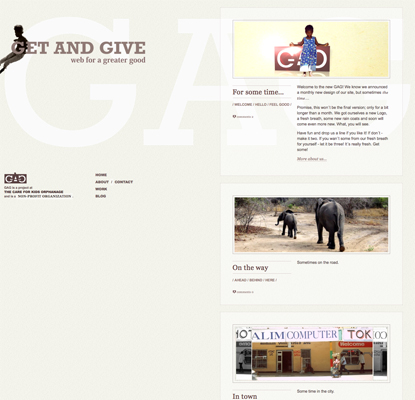
get and give
When I first came across GAG: Get and Give a few months ago it was like a breath of fresh air in a stuffy gallery filled with nondescript pictures.
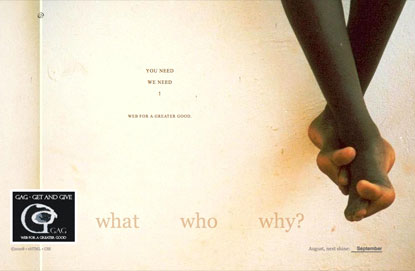
Soon I realized that I’ve seen that powerful image of two crossed barefoot child legs somewhere else, and sure enough I rediscovered them on another site that impressed me just days before GAG did, it was the site for the Care For Kids Farm project.
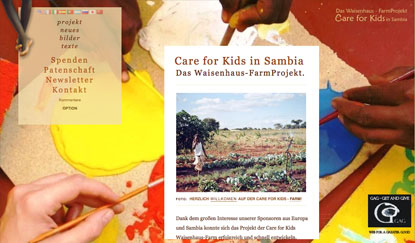
Constant Metamorphosis
Both sites have undergone numerous reincarnations since I first laid my eyes on them. Fortunately, all previous GAG versions have been preserved and you can see them in all their August, September, October and November glories.
When September’s version of GAG was released and once again featured in numerous galleries, I could not sustain my curiosity any longer and embarked on a private investigation to find the designer of those humble pieces of art. I got lucky and landed an interview (that was soon followed by many friendly chats) with Ronny Jander, the creative genius behind GAG and Care For Kids Farm web sites.
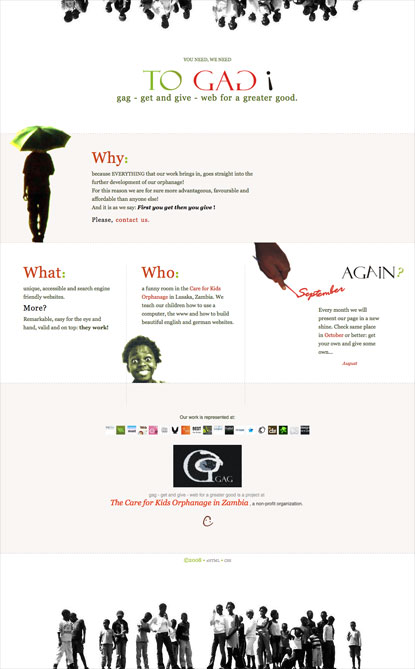
The Care for Kids Farm is a non-profit organization in Zambia, founded in 2001. What started as a small orphanage with three children has since grown into a big family with forty children. Ronny has joined the Farm four years ago, leaving his native Germany behind. About a year ago he got interested in Web Design, and already last August he decided to start the GAG project, where he would be designing new versions of the GAG web site every month in hopes of building up his portfolio and attracting some clients, thus generating more revenue for the Care for Kids project. What a simple, yet such a powerful, idea for the world to think about: get a web site and give to kids in the orphanage.
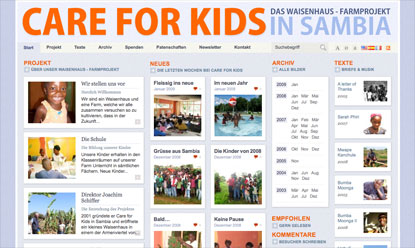
With a background in traditional art, Ronny brings a fresh look to the world of Web design. With just a few well-chosen photos, colours and typography, as a true artist, he pours his heart and soul into his work, culminating into web sites filled with raw emotions, genuine love for the craft and painstaking attention to details.
While all the previous versions of GAG and the Care For Kids Farm were designed as single page sites the latest re-designs were built with Wordpress, Ronny’s new venture in advancing his web design skills.
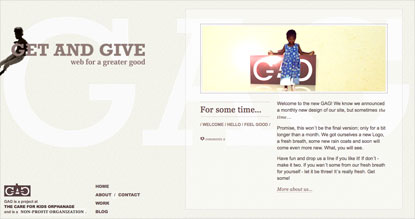
Magic revealed
The very first thing that catches the eye on the new GAG site is the right alignment of its main content, something that we don’t see very often on the Web. The surprises continue as you start resizing the browser window: the site’s title, tagline and the GAG huge lettering in the background, all scale concurrently, following your mouse moves. Being the curious person I am, I immediately launched Firebug to uncover the secrets to those alterations:
Both images are embedded with img tags, not as background images. The big GAG lettering is inserted right after the body tag, with 1648x519px image dimension and styled with CSS:
#backimg {
left:-15px;
margin-top:4%;
position:fixed;
width:100%;
z-index:-1;
}
The CSS class .logopic, set with width:100%; keeps the 940x330px image of the logotype and tagline constrained and under control of the parent div.logo-top:
.logo-top {
left:0;
position:fixed;
top:12%;
width:35%;
z-index:13;
}
The site’s content is floated to the right and each post is wrapped within a div element with a transparent PNG image in the background, allowing us to see the GAG lettering underneath while keeping the content unobstructed and legible.
Obviously, IE6 users won’t see any of those alluring features (neither the scalable images, nor the transparent backgrounds), but rather than compromising with the design, Ronny gives up the support of the ancient browser with a polite note in the footer.
The site’s typography is simple yet understated. The main copy is set in Arial, while all headings and supporting text are set in elegant Georgia. Plenty of white space, delicate dotted lines, post titles aligned to the right of the article, restrained image styling and the see-through backgrounds give the site an airy feel, while the earthy colour scheme of harmonious browns and greys is brightened with a tangy orange on link hovers. Even the social bookmarking icons have been retouched to go in unison with the site’s subdued style.
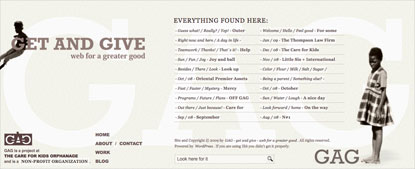
GAG’s footer deserves a special mention. I love the delicate type treatment and how Ronny uses photos to enforce site messages. In the footer it’s a girl looking down at her bare feet. In the header it’s a boy, leaning on a giant G, clearly needing our support, or else he’ll slide down. The girl on the welcoming image looks up with a bashful smile, the illuminating light of hope behind her is a sign for her brighter future, supported by GAG.
Criticisms
I have only a few comments and wishes. First and foremost, the Get and Give image title needs to be linked to the homepage: habitually, to go back to the homepage, the majority of users click on the logo/large site title rather than on the Home link. I would separate About and Contact sections into individual pages. I would also add categories or tags to make the content more digestable. Lastly, I just wish Ronny and his team would find more time updating the blog with fascinating photos and longer posts.
You’re absolutely right, Steve. The title copy is Rockwell. The scaling large background type was what prompted me to review this site for Typesites in the first place